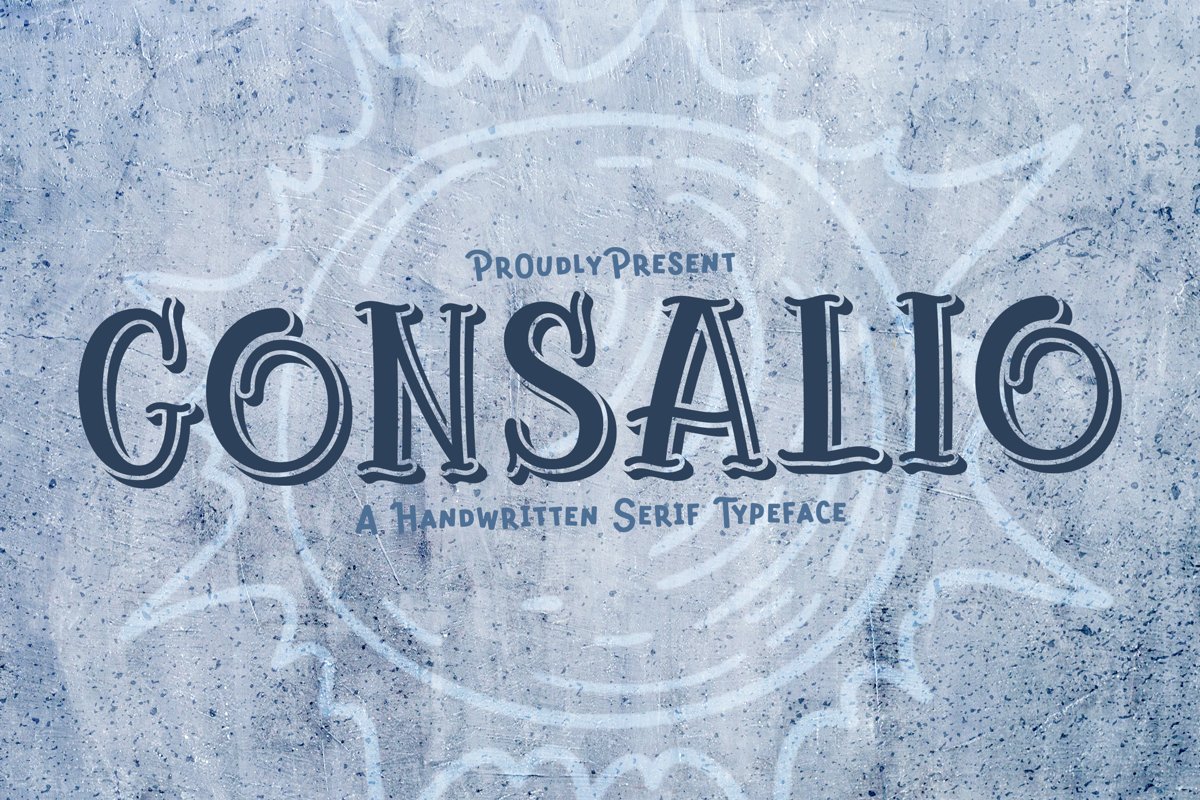
Gonsalio is a handwritten serif typeface. Perfect for display, quotes, posters, business card, logo, logotype, branding, print, t-shirt, mug, packaging, merchandise, and many more.